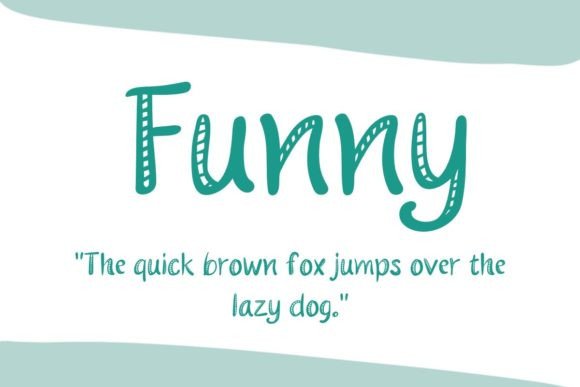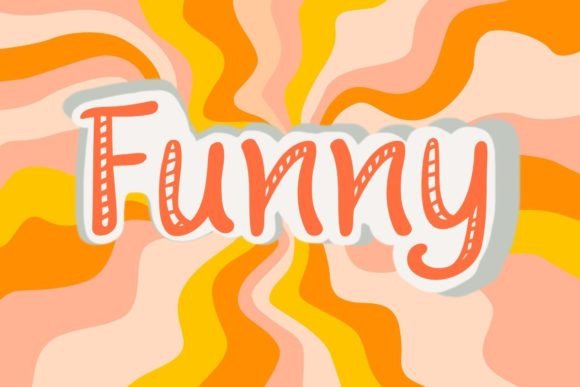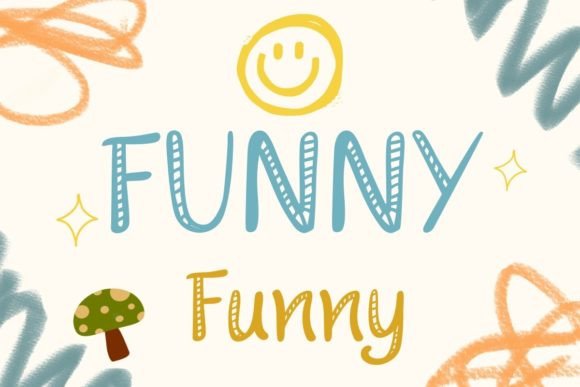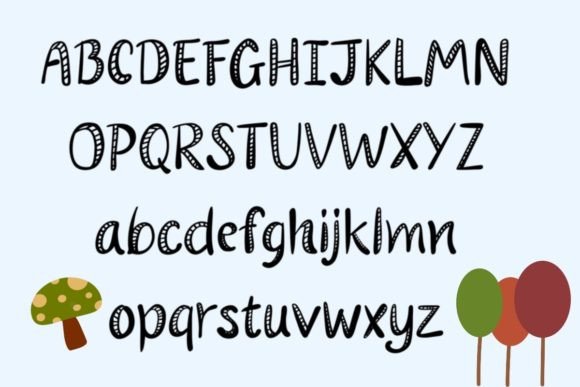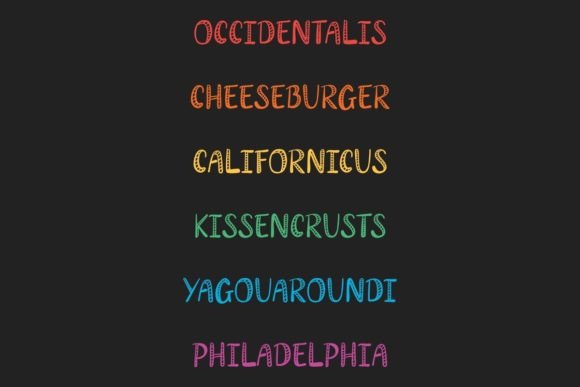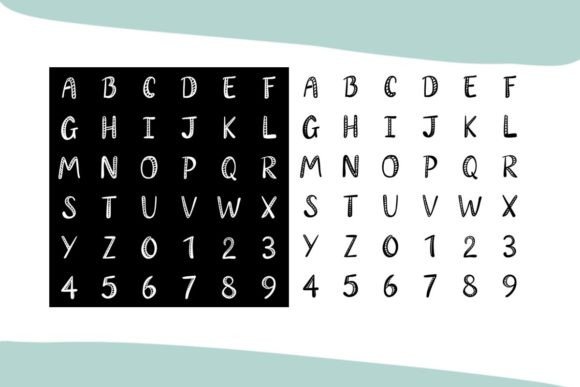
Introducing Funny Font: The Ultimate Display Font for Kids and School Themes
Are you tired of using the same old boring fonts for your design projects? Look no further! Funny Font is here to add a dash of excitement and playfulness to your creations. This uniquely designed display font is perfect for kids or school themes and can be used for a wide range of projects, from crafting and restaurant menus to digital designing, presentations, and greeting card making.
What Makes Funny Font So Special?
Funny Font is a one-of-a-kind display font that is designed to bring a smile to your face. Its fun and quirky design makes it perfect for projects that require a playful touch. Whether you’re creating materials for kids or want to add some whimsy to your designs, Funny Font is the ideal choice. Its versatility allows it to be paired with a vast array of projects, making it a valuable addition to your font collection.
Perfect for Kids and School Themes
Funny Font is specifically designed with kids and school themes in mind. Its bright and cheerful design makes it perfect for:
- School posters and flyers
- Kids’ party invitations and decorations
- Educational materials and worksheets
- Children’s book titles and illustrations
Beyond School Themes: Other Uses for Funny Font
While Funny Font is perfect for kids and school themes, its uses don’t stop there. This versatile font can be used for a wide range of projects, including:
- Crafting and DIY projects: Add a playful touch to your crafting and DIY projects, such as handmade cards, gift tags, and scrapbooking.
- Restaurant menus: Add some whimsy to your restaurant menus and make them stand out from the crowd.
- Digital designing: Use Funny Font to add a playful touch to your digital designs, such as social media graphics, blog posts, and email newsletters.
- Presentations: Make your presentations more engaging and fun with Funny Font.
- Greeting card making: Create unique and playful greeting cards for special occasions.
Why Choose Funny Font?
So, why choose Funny Font over other fonts? Here are just a few reasons:
- Unique design: Funny Font has a one-of-a-kind design that will make your projects stand out.
- Versatility: This font can be used for a wide range of projects, making it a valuable addition to your font collection.
- Playful touch: Funny Font adds a playful touch to your designs, making them more engaging and fun.
- Easily readable: Despite its playful design, Funny Font is easily readable, making it perfect for both digital and print projects.
Tips for Using Funny Font
Here are some tips for getting the most out of Funny Font:
- Pair with other fonts: Experiment with pairing Funny Font with other fonts to create a unique look.
- Use it sparingly: While Funny Font is playful and fun, it can be overwhelming if used too much. Use it sparingly to add emphasis to your designs.
- Experiment with colors: Funny Font looks great in bright, bold colors. Experiment with different colors to find the perfect combination for your project.
Funny Font is a uniquely designed display font that is perfect for kids or school themes. Its playful and whimsical design makes it perfect for a wide range of projects, from crafting and restaurant menus to digital designing, presentations, and greeting card making. With its versatility, unique design, and playful touch, Funny Font is a valuable addition to any designer’s font collection. So why not give it a try and see how it can make your designs stand out?